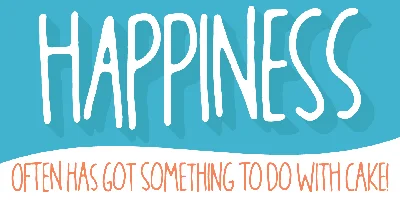
Blikfang Font
Discover the stunning Blikfang Font, a versatile typeface perfect for elevating your design projects. Please note that you must purchase this font for commercial use. You can download it for free for testing purposes. This bold and modern font is ideal for logos, posters, branding, and more, offering a unique aesthetic that captures attention. With its clean lines and distinctive style, Blikfang Font ensures your designs stand out in a crowded digital landscape.
Whether you're a graphic designer, marketer, or content creator, the Blikfang Font brings a professional edge to your work. Its sleek design is optimized for readability across print and digital platforms, making it a go-to choice for websites, social media graphics, and advertising materials. The font’s contemporary appeal aligns perfectly with current design trends, helping you create visually striking content that resonates with your audience.
For those looking to test its potential, Blikfang Font is available to explore its features before committing to a purchase. This typeface supports multiple languages, ensuring accessibility for global projects. Its adaptability makes it suitable for both minimalist and intricate designs, offering flexibility for creative professionals. By incorporating the Blikfang Font into your toolkit, you can enhance your brand’s visual identity and make a lasting impression.